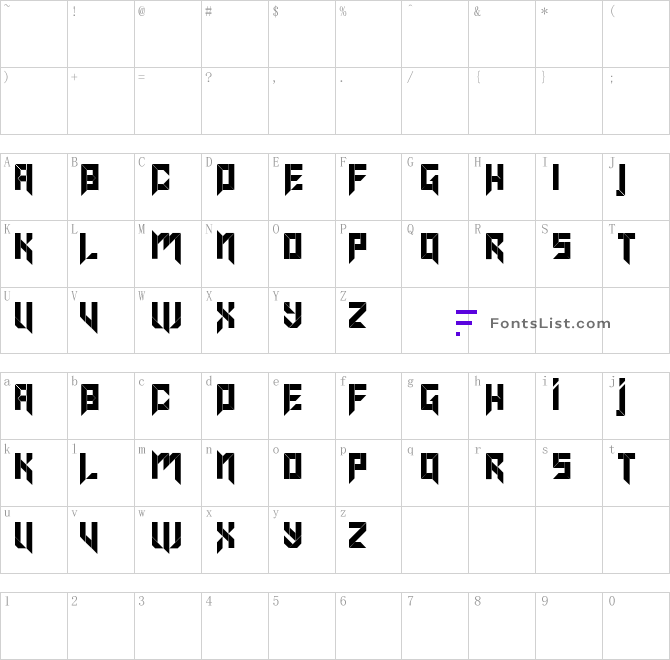
- Font Name:Barbie
Barbie.ttf is a very beautiful artistic font, Barbie.ttf is widely used in the design and printing of various books and pictures,Barbie.ttf has a strong visual impact,Barbie.ttf is a commonly used font in newspapers, magazines and books, and is used in posters, e-commerce Poster design, store design, logo design, font design and other fields.Barbie.